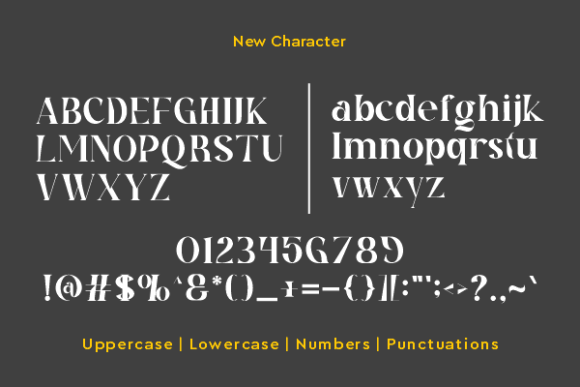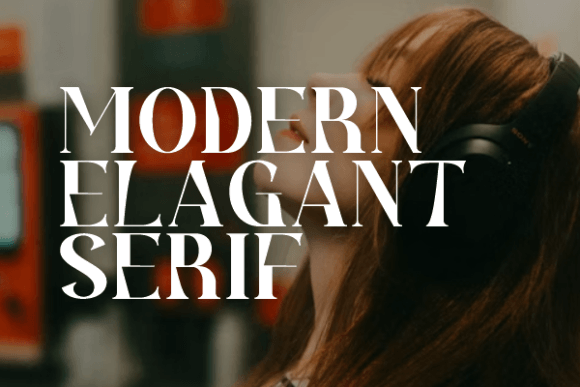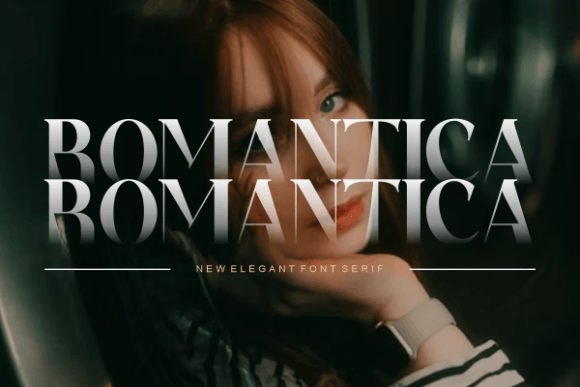
Romantica Serif Font
Designer: sinduamiw
Romantica Serif Font is an elegant and modern serif font. Fall in love with its incredibly versatile style and use it to create beautiful wedding invitations, beautiful stationary art, interesting social media posts, and more.